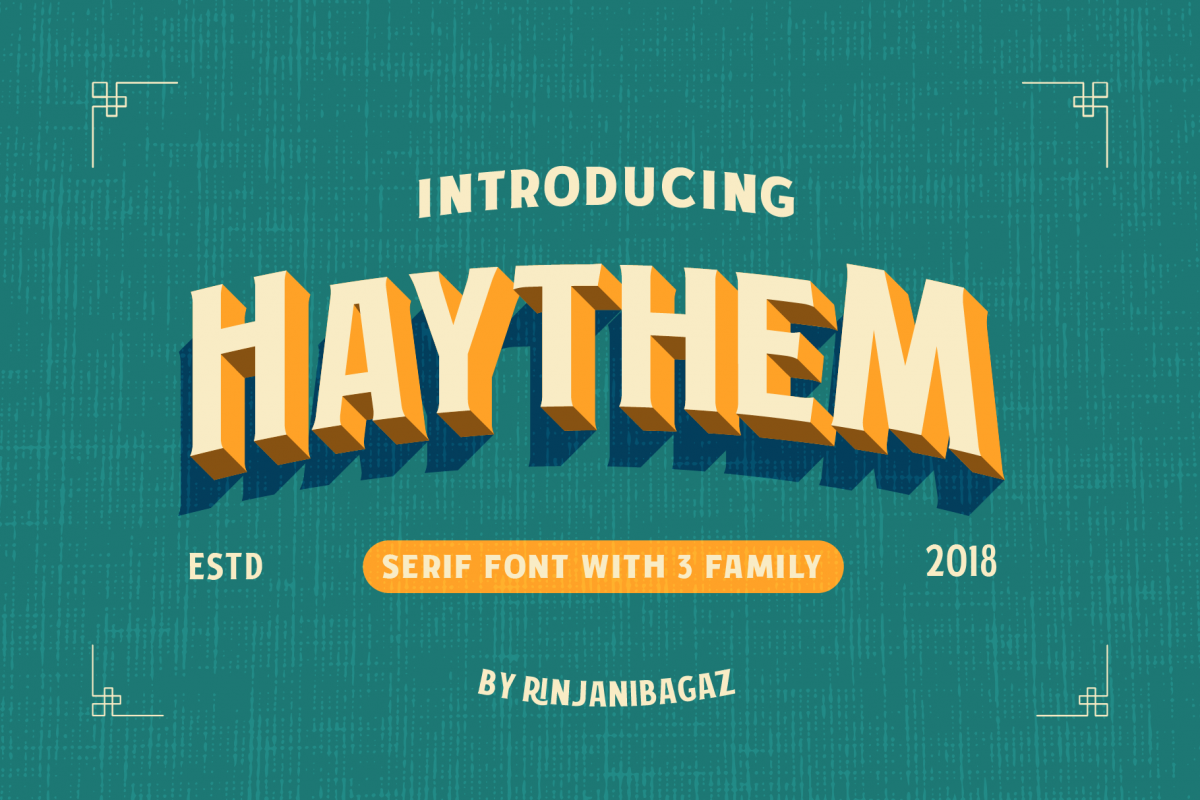
Haythem
haythem two
haythem three
haythem
Haythem is a serif font inspired from vintage tins, signage, and posters. Come with a family of 3 fonts,
Haythem makes your creative projects better. Combine 3 of them to result an authentic looking labels, signs, apparel, logotypes, branding, and more.What's Included?